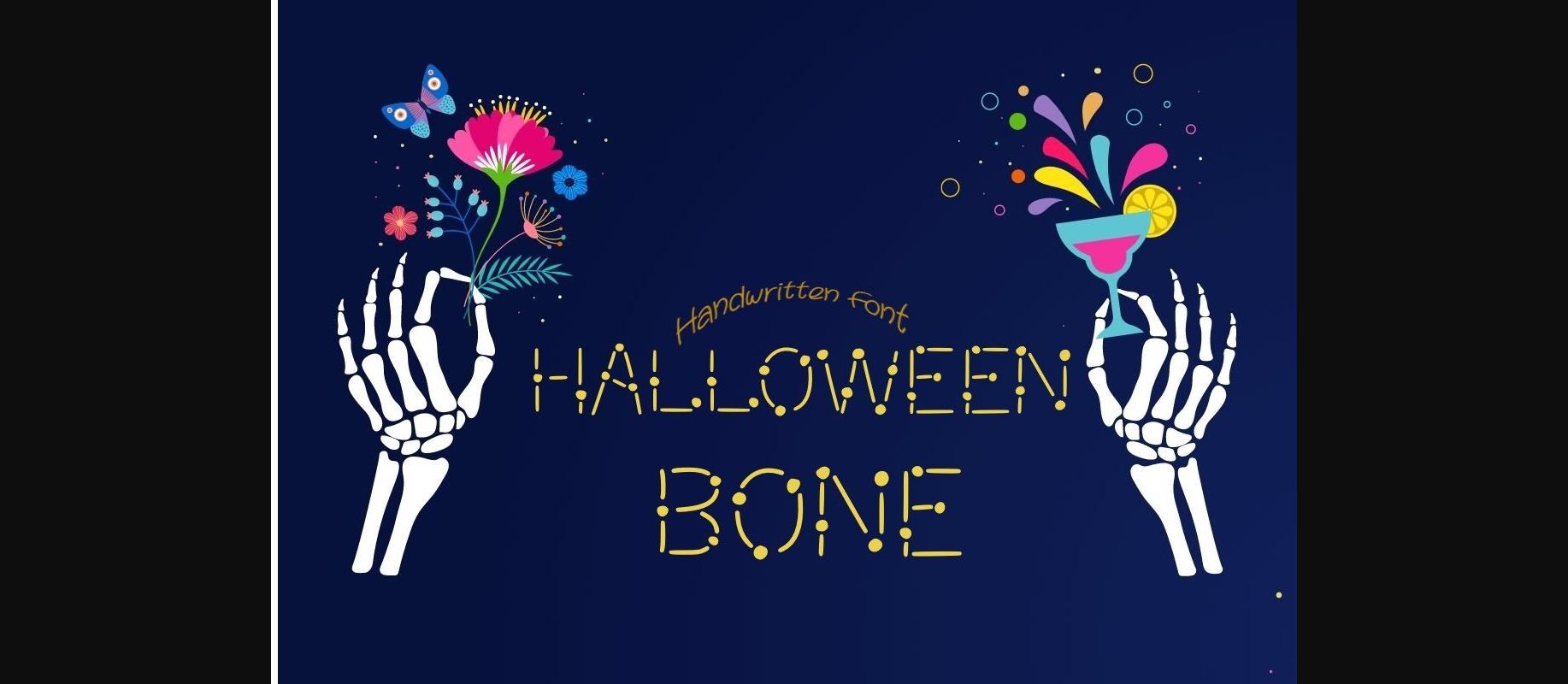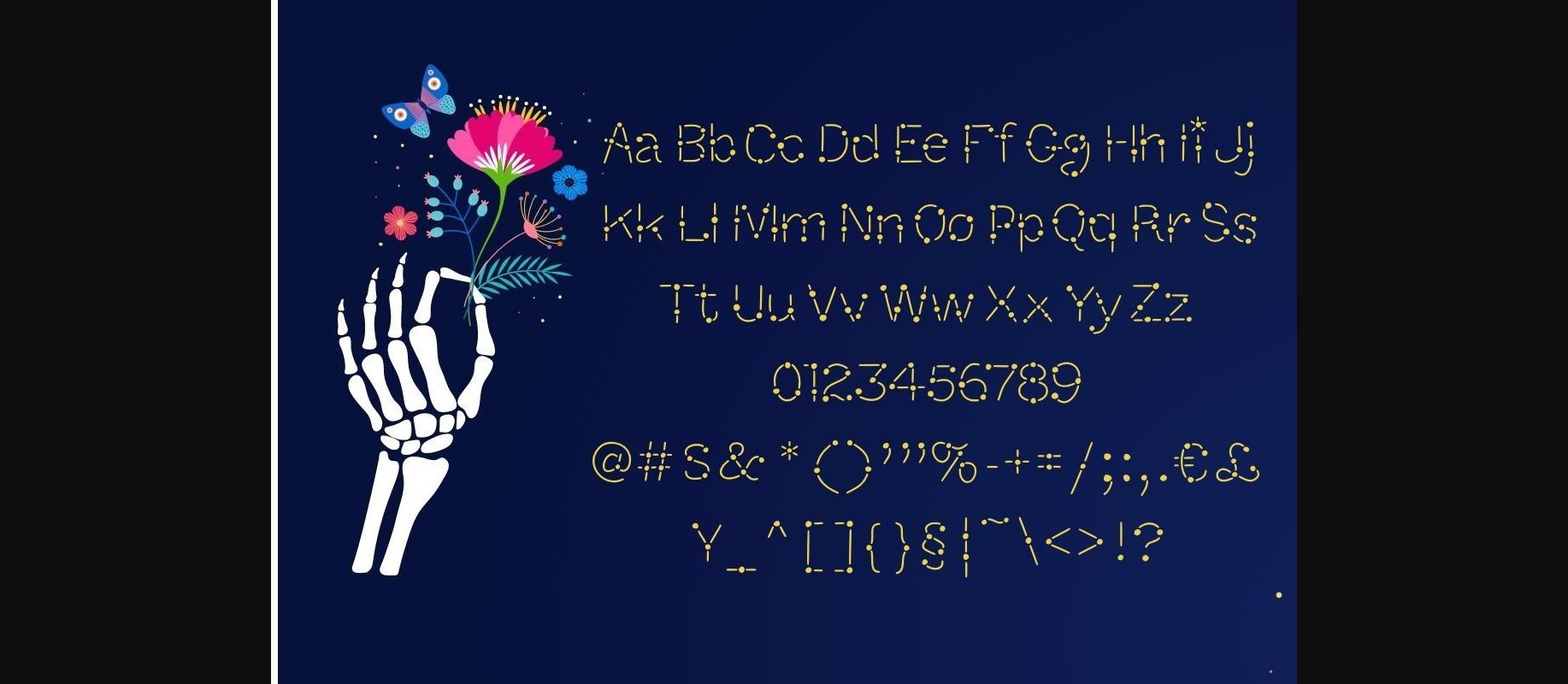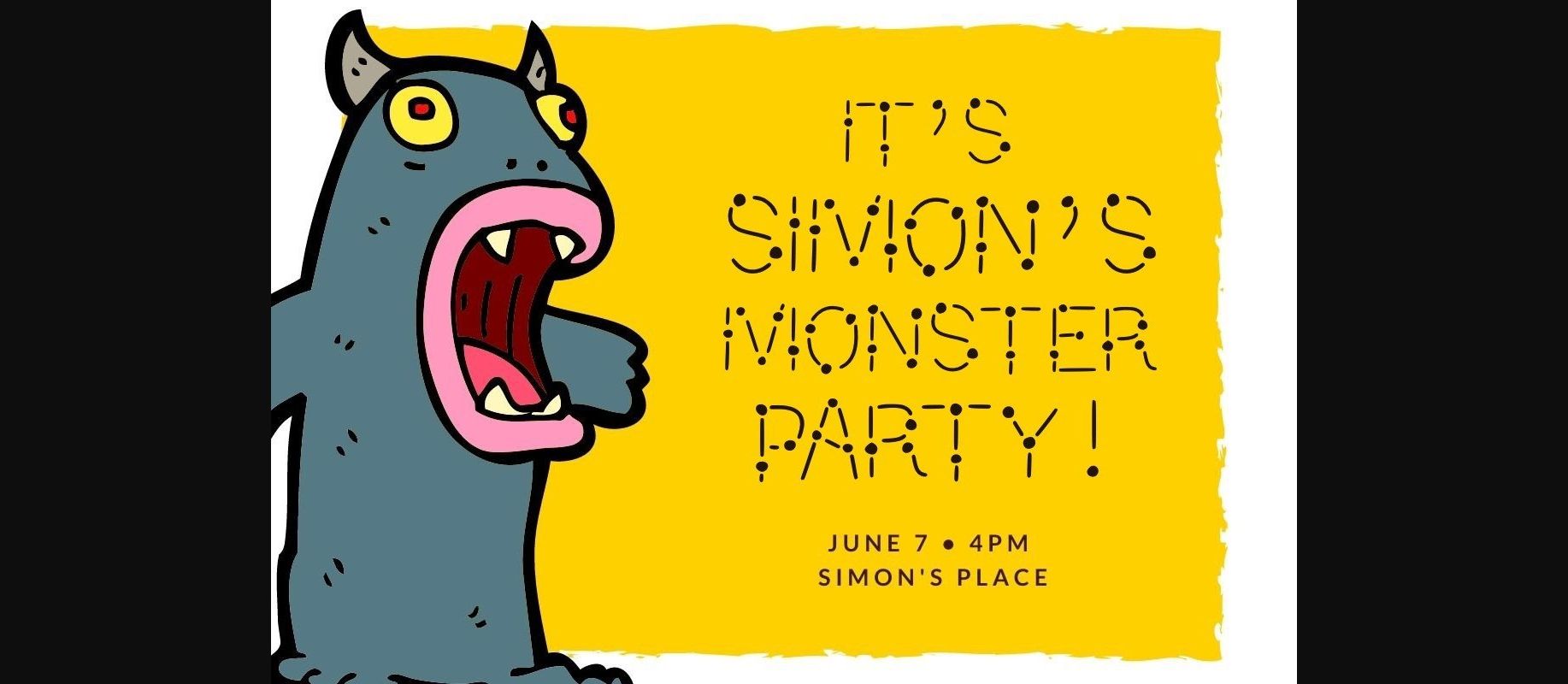
About Halloween Bone Font
Halloween Bone is a decorative font suitable for logos, branding, wedding invitations, business cards, greeting cards, posters, magazines, social media, planner prints, and websites. It is especially useful for children’s designs, t-shirts, mugs, posters, and more. Add this font to your favorite creative ideas, and notice how it makes them come alive!